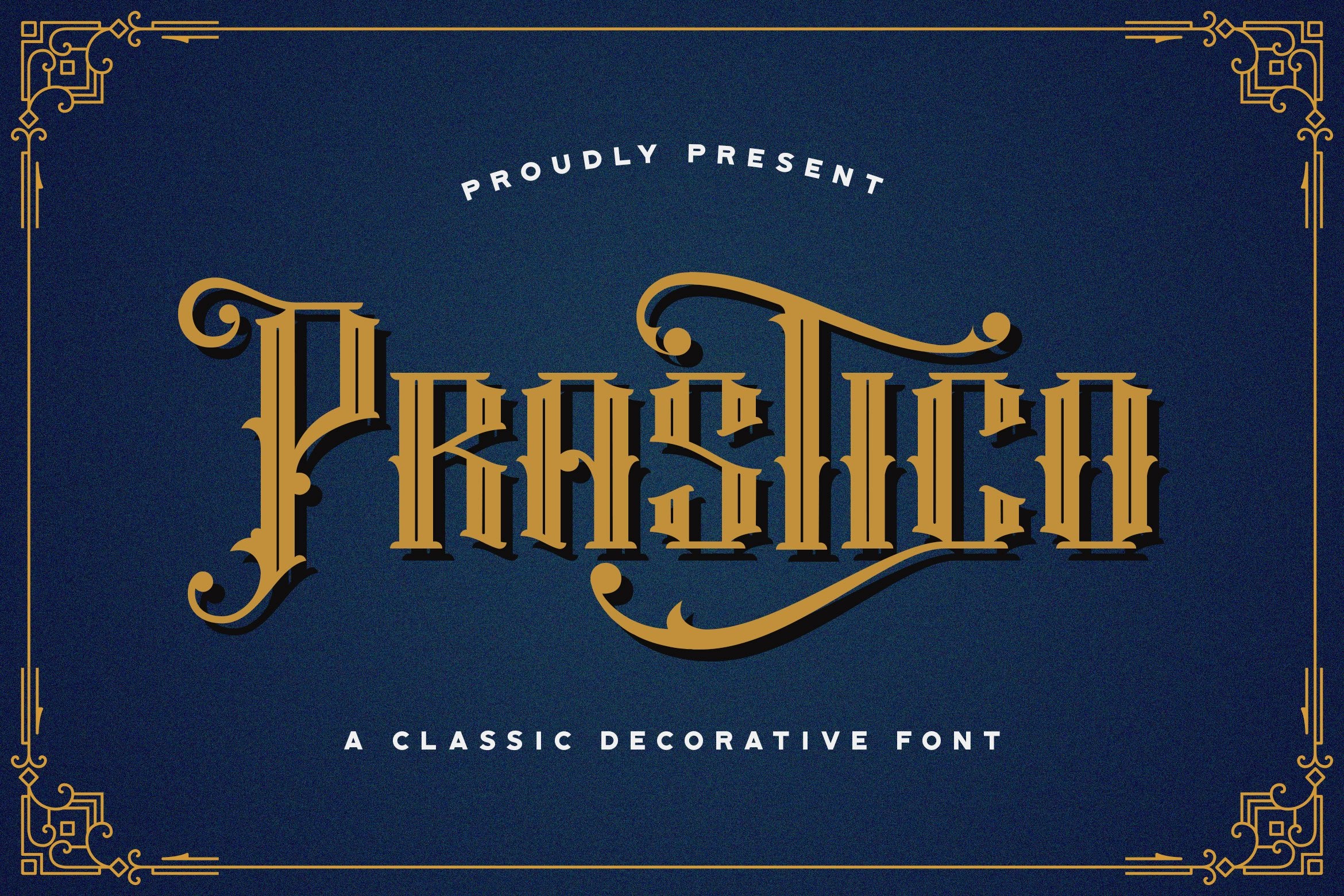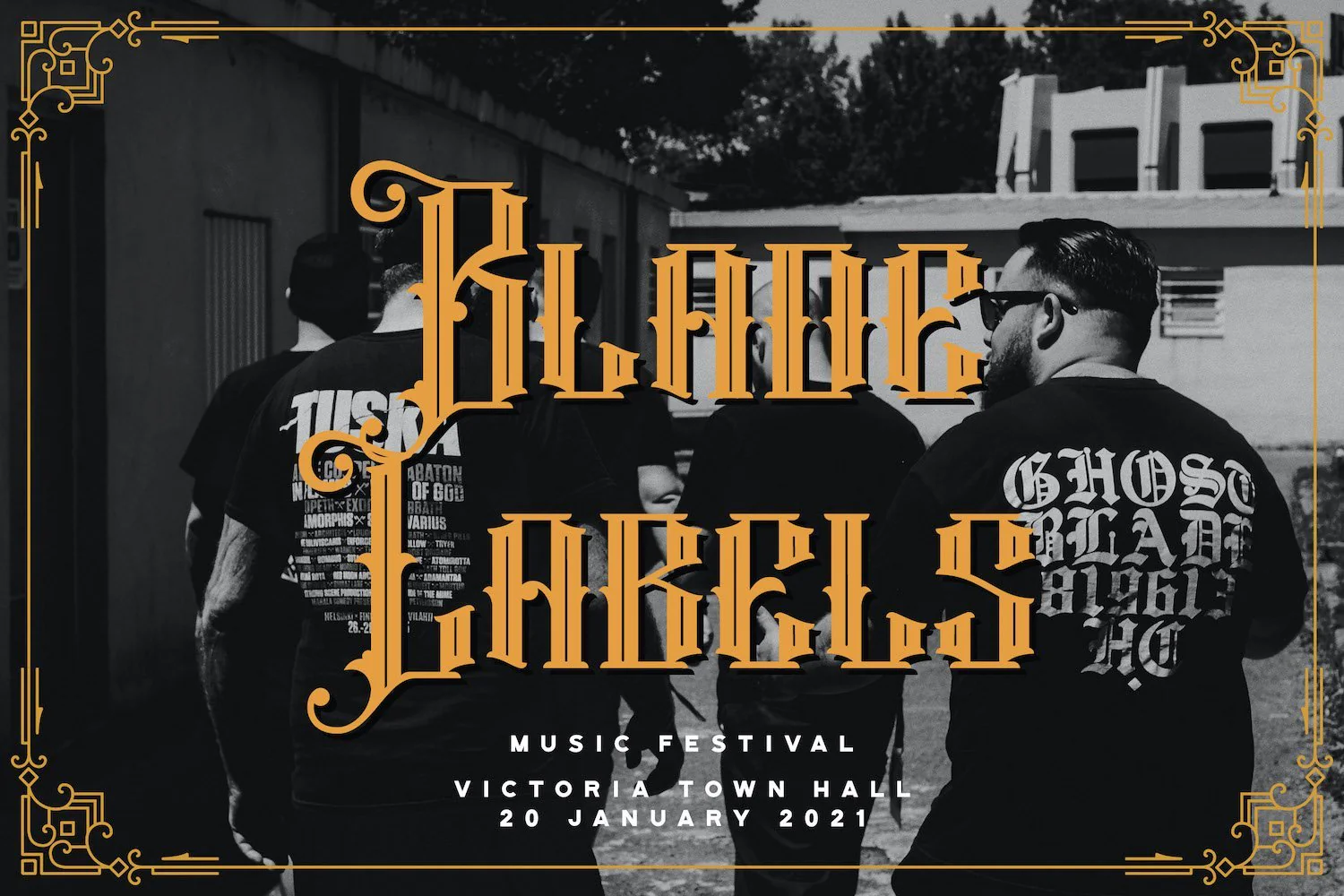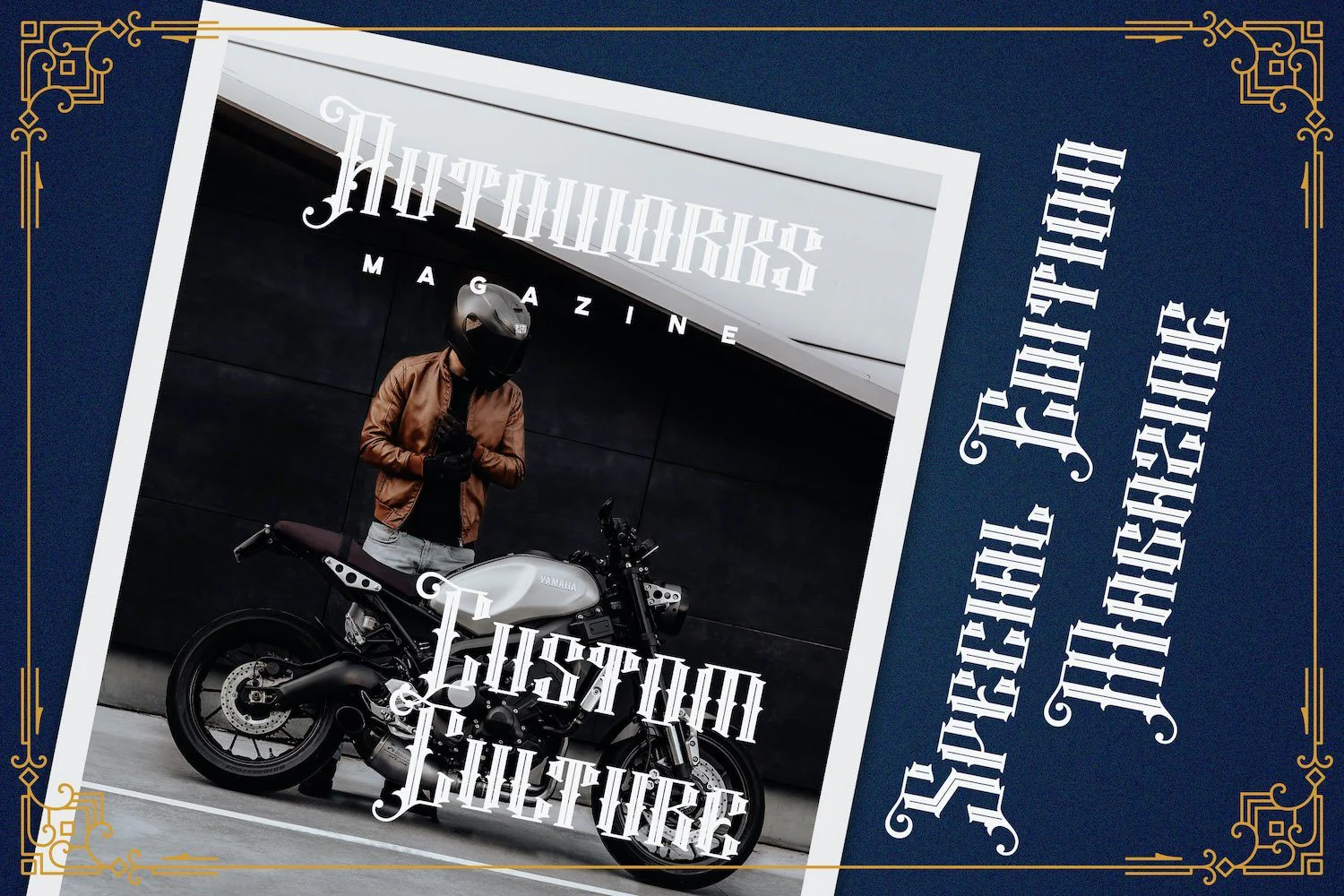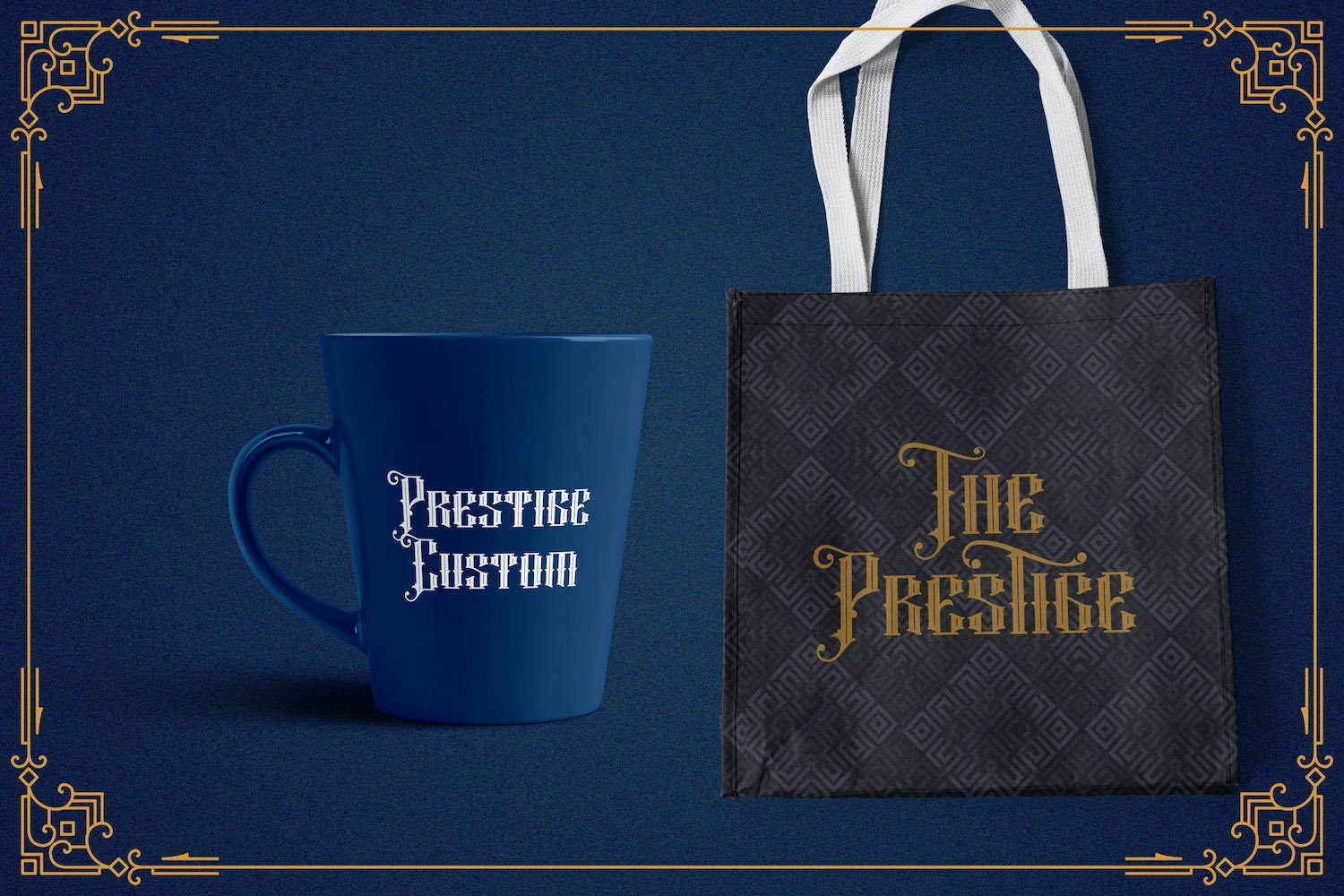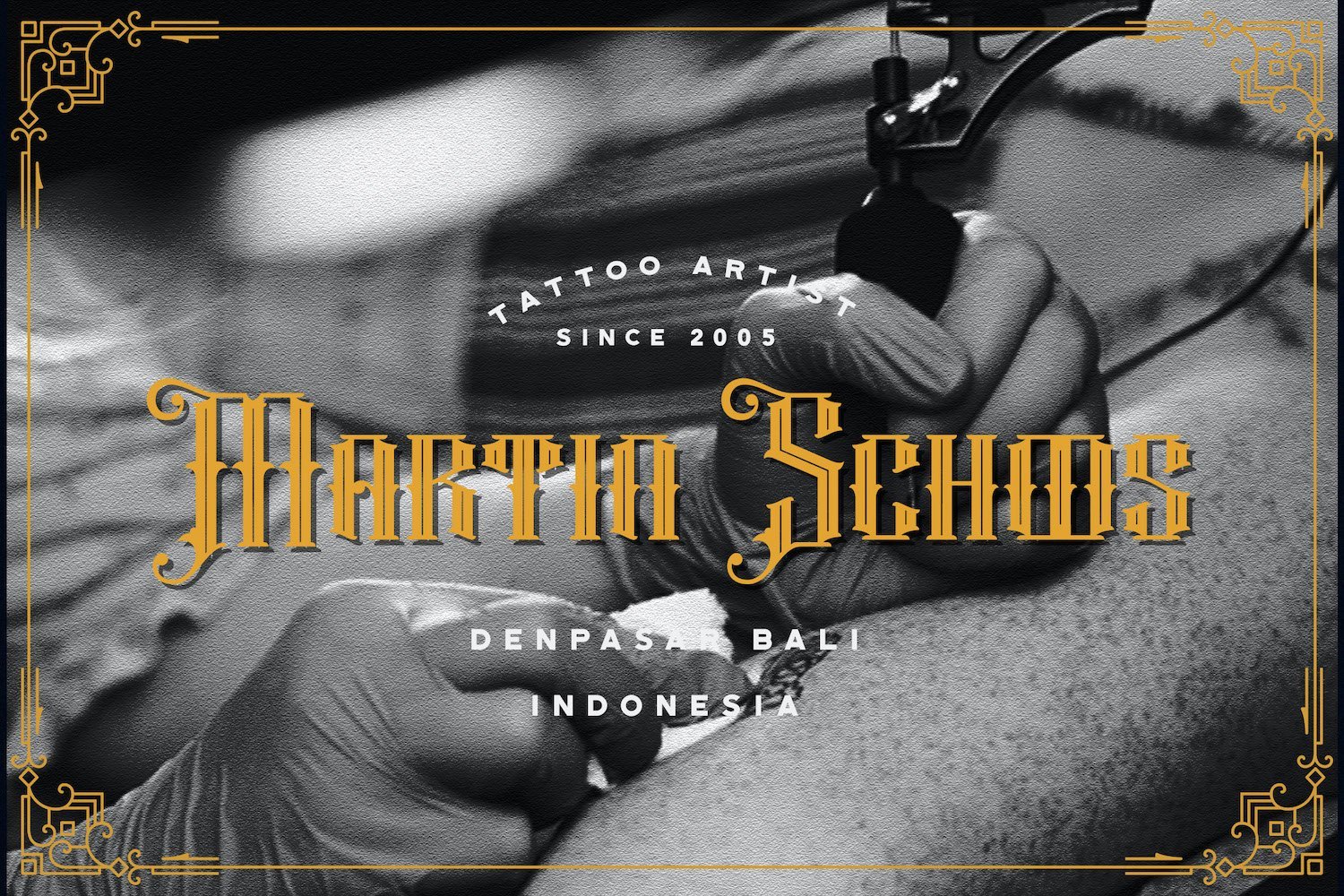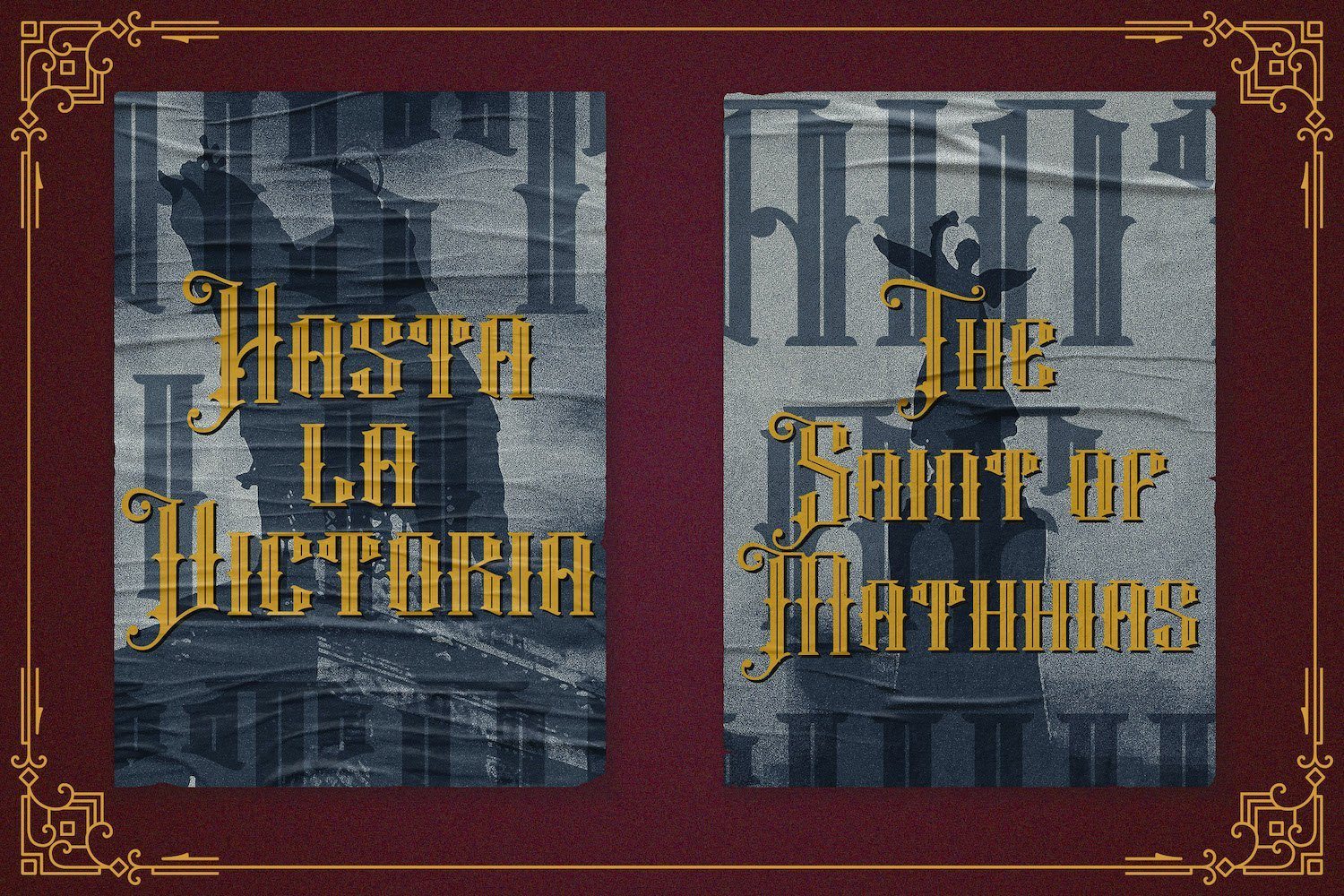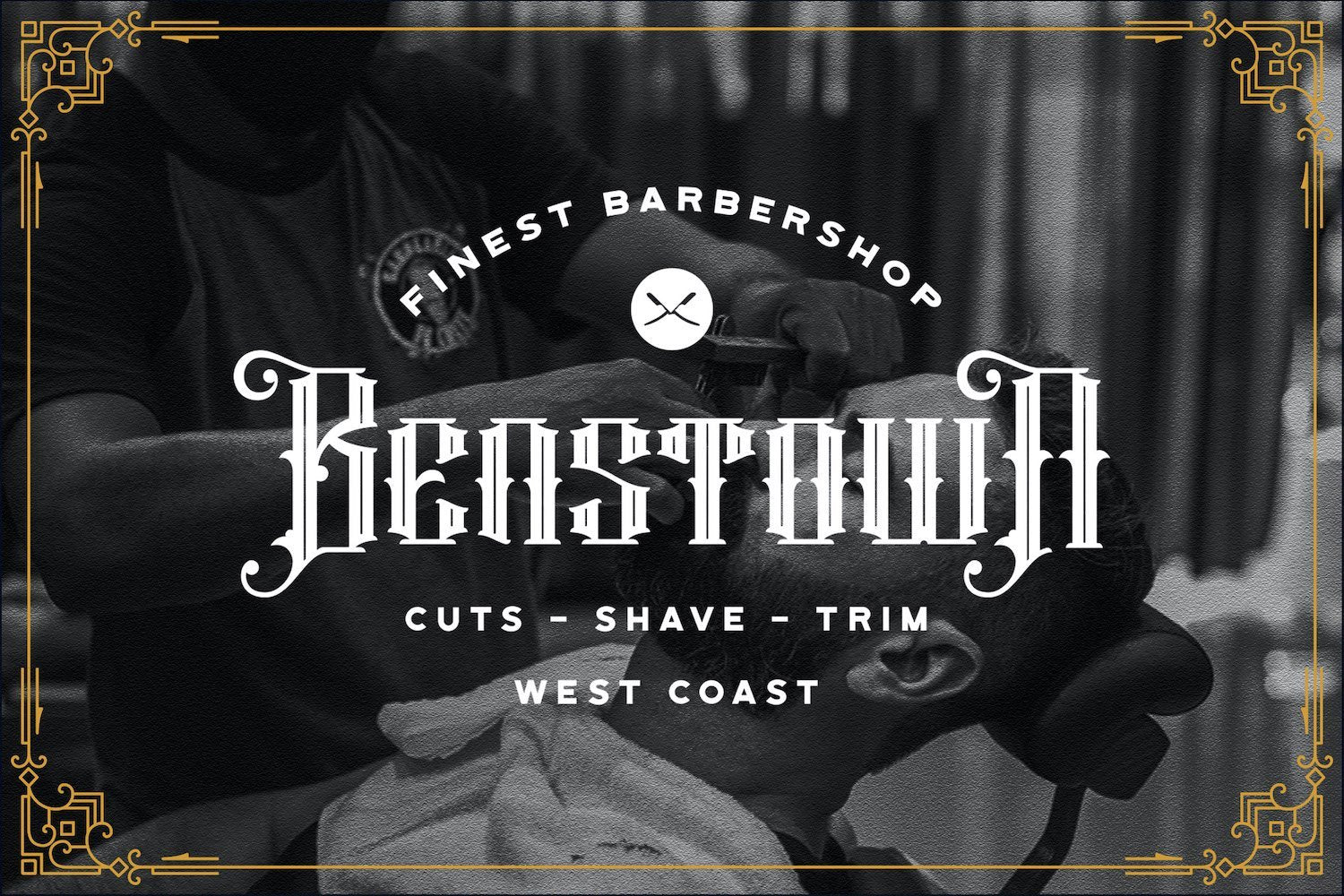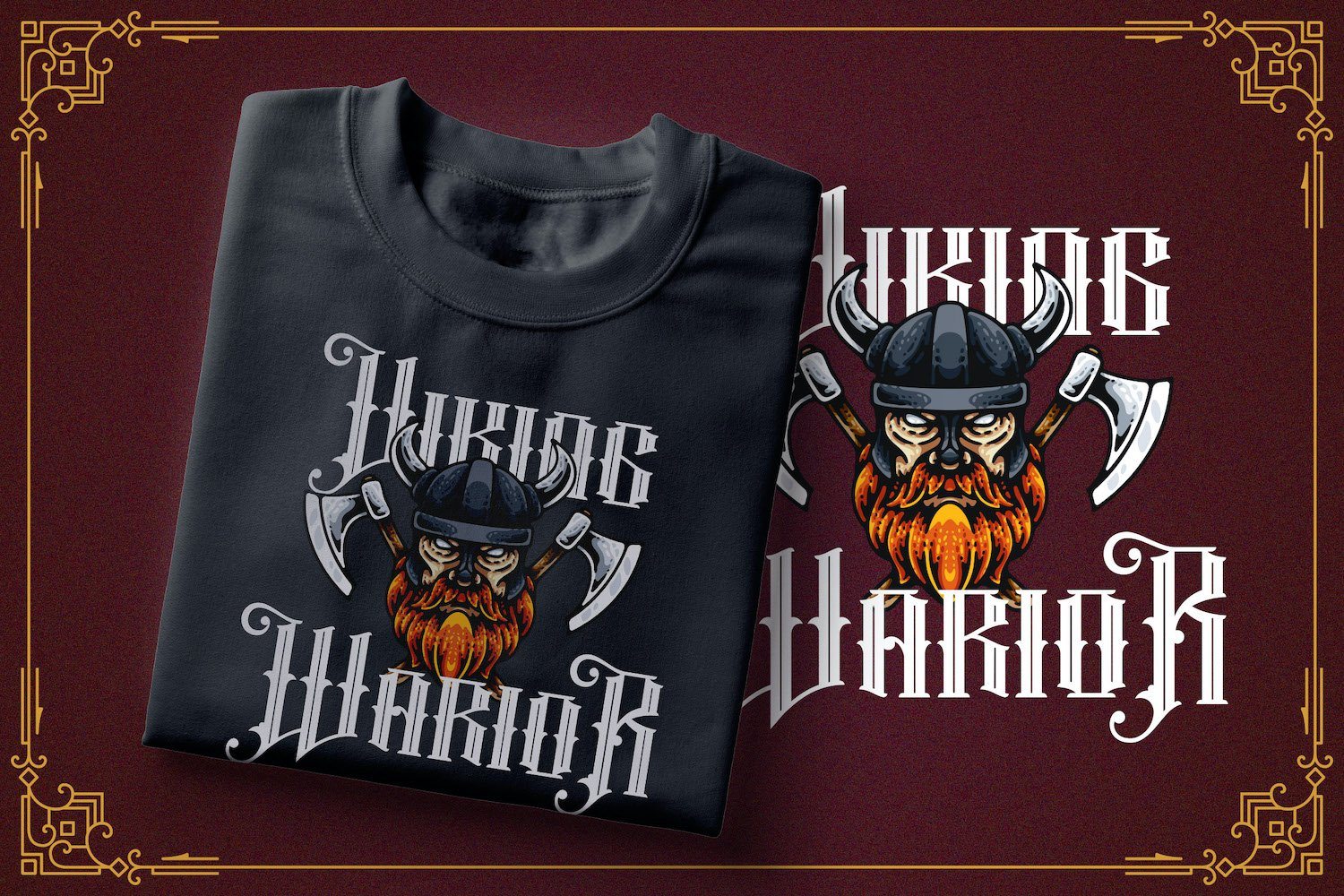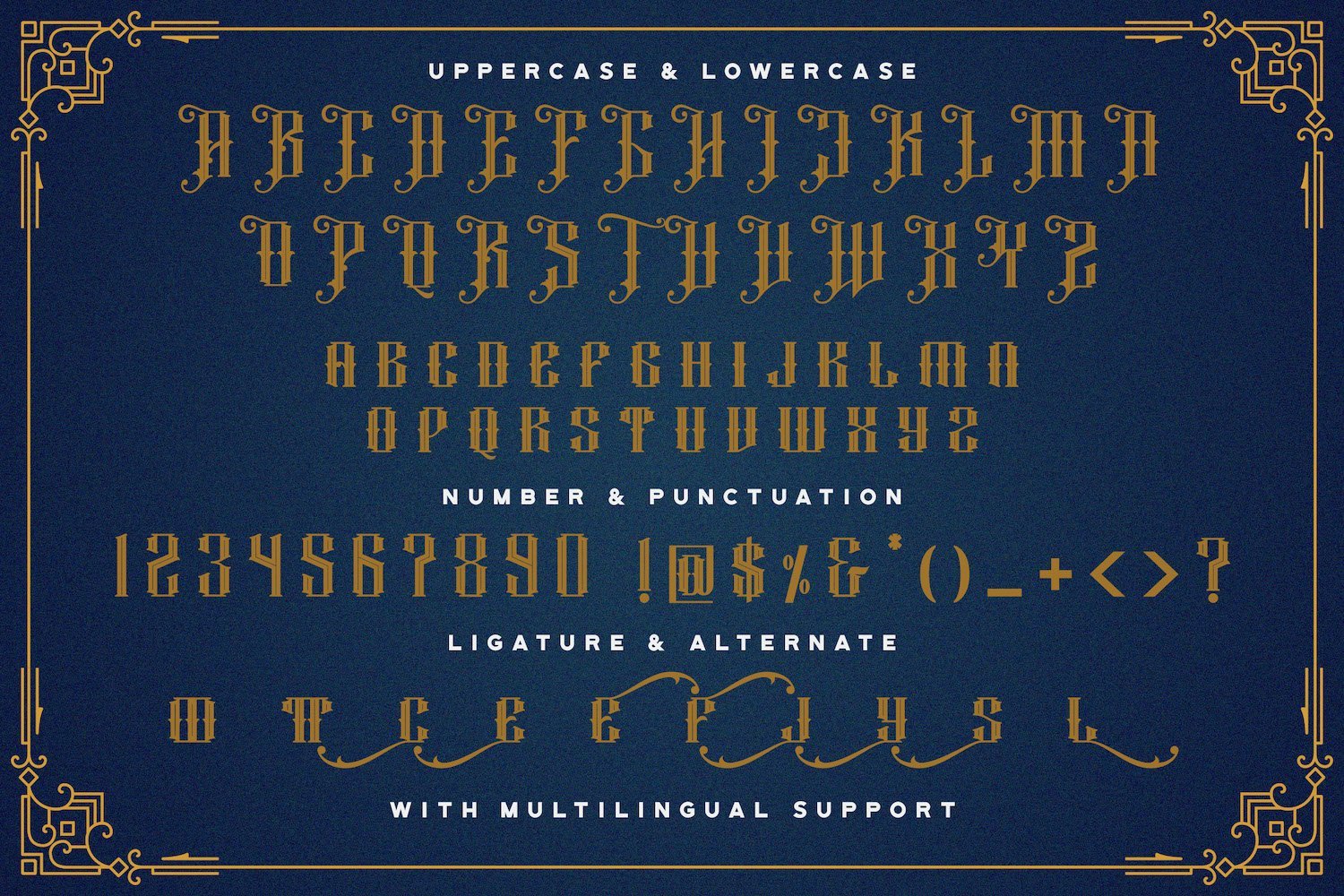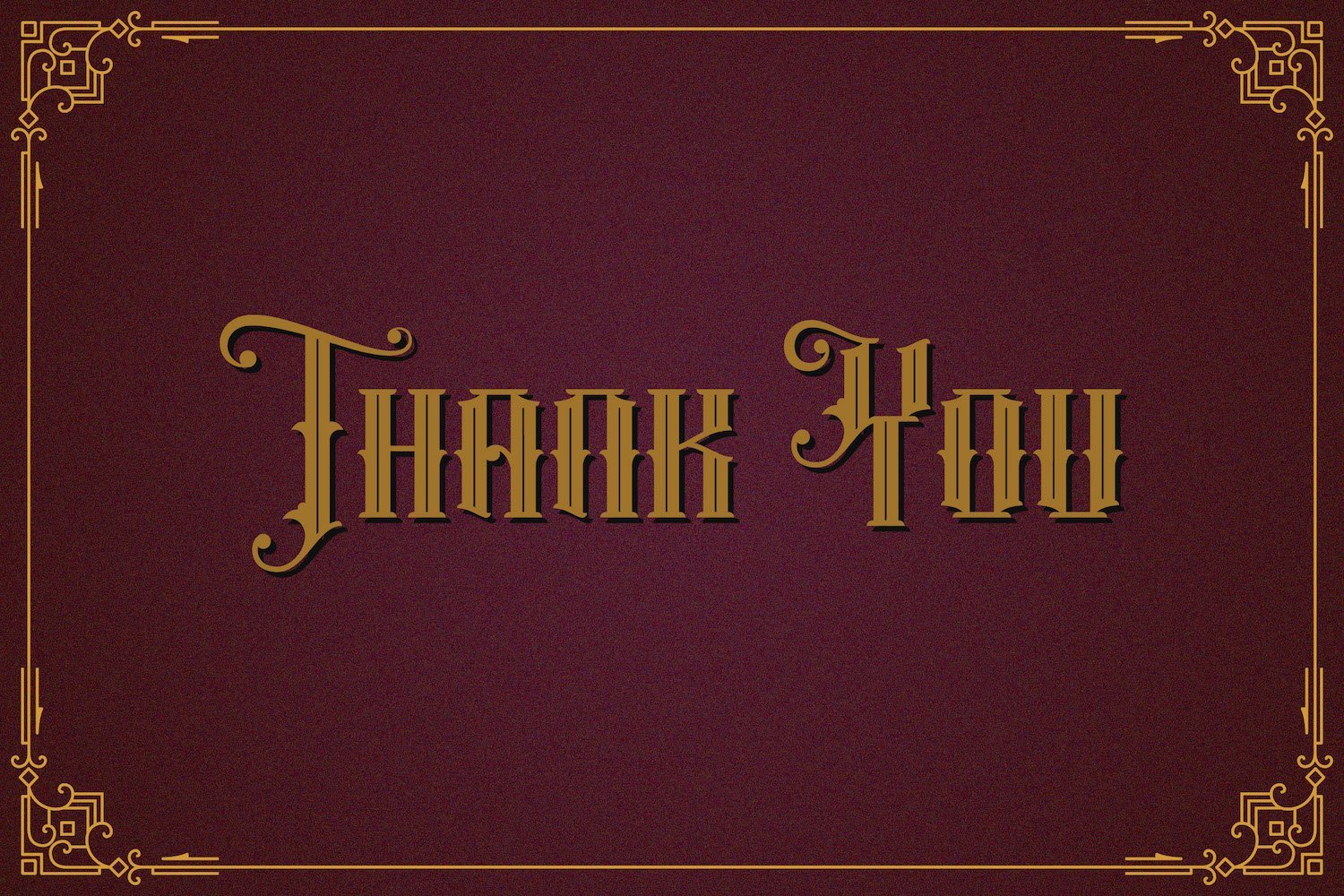
Prastico - Blackletter Font
Introducing Prastico - Blackletter Font
Prastico is an incredibly authentic and daring blackletter font. Add this font to your favorite creative ideas and notice how it makes them stand out!
Introducing Prastico - Blackletter Font
Prastico is an incredibly authentic and daring blackletter font. Add this font to your favorite creative ideas and notice how it makes them stand out!